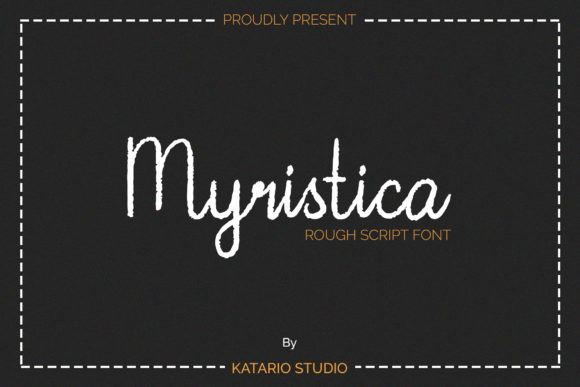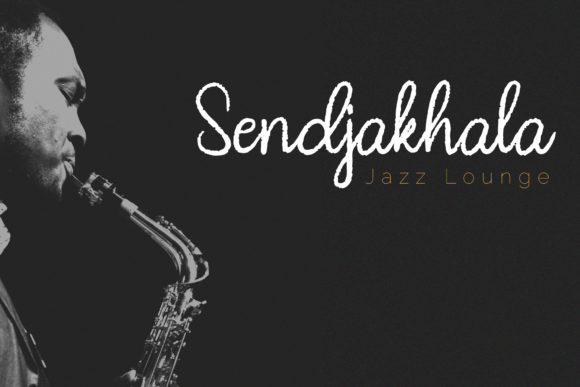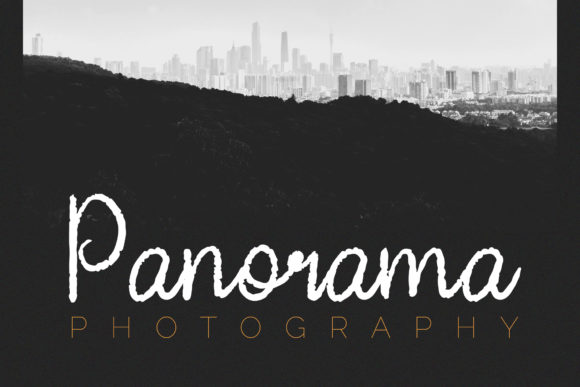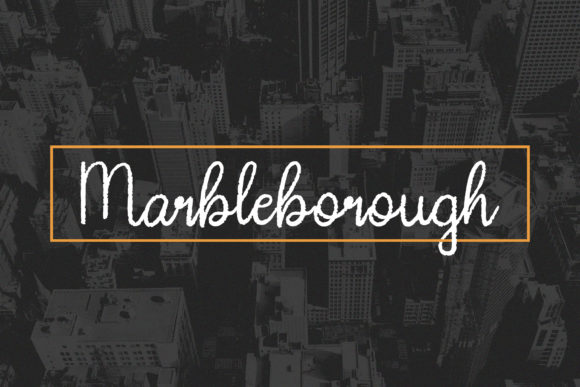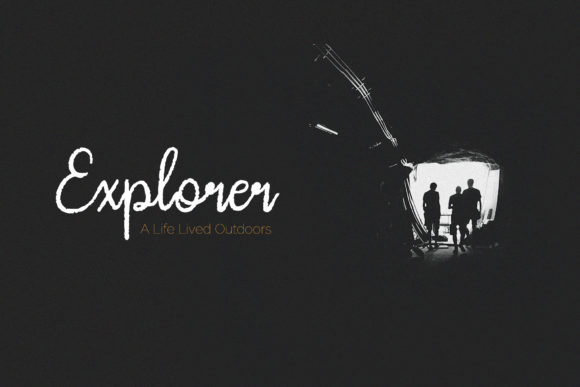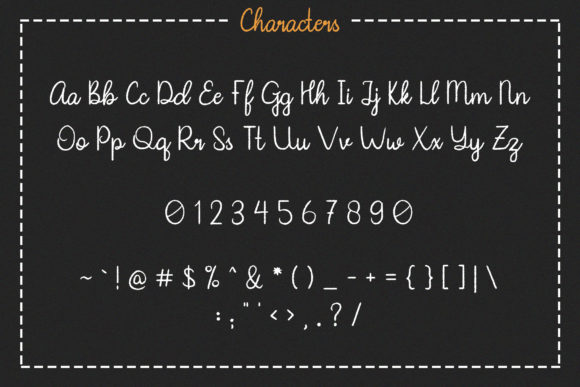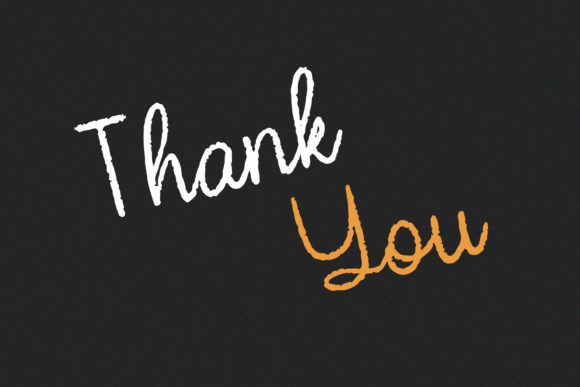
Myristica Font
About Myristica Font
Myristica is a great rough script font. It’s perfect for logos, wedding invitations, posters, branding and much more!